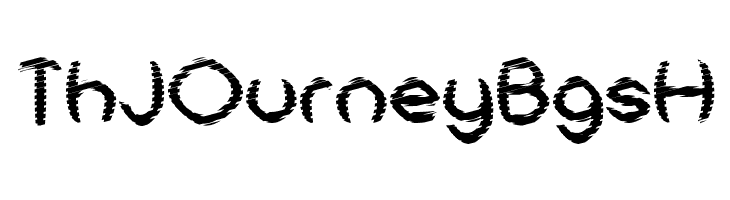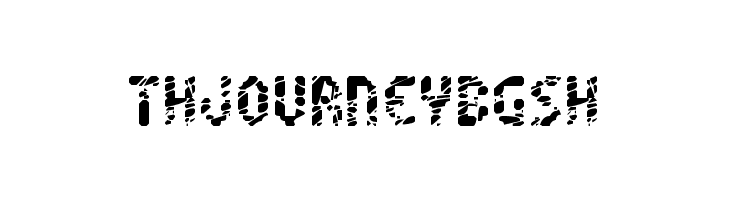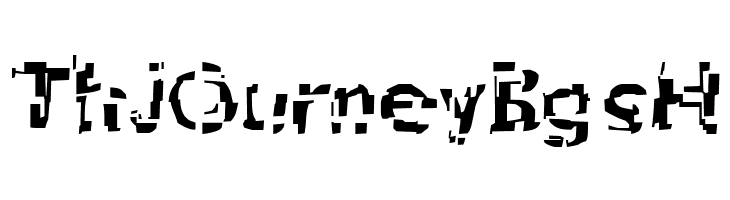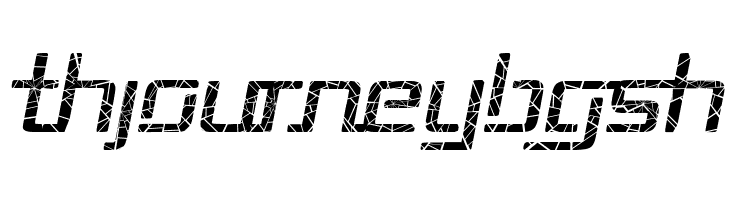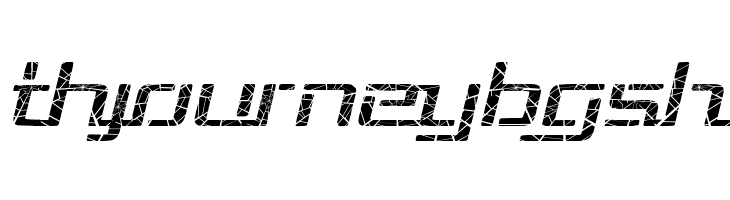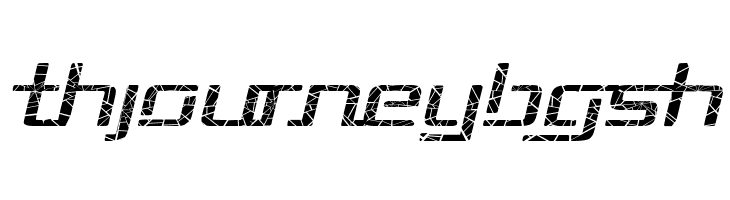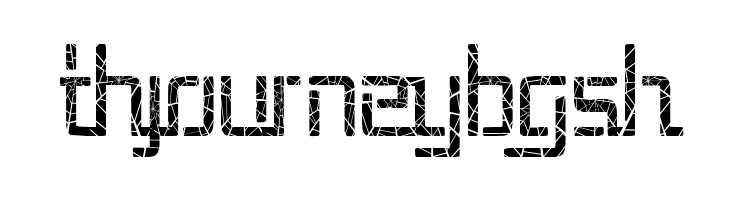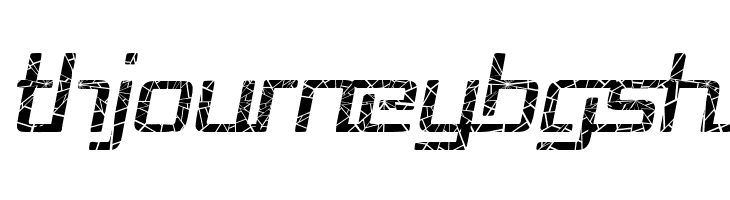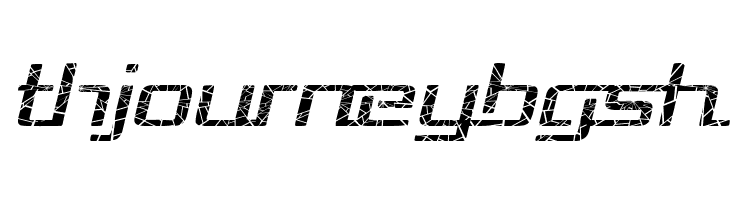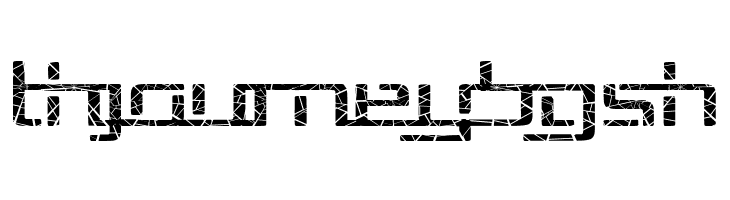
ShatterWeb Font
A bold, shattered glass effect font with dynamic, fragmented characters.
Shattered Font
A fragmented, shattered glass-style font with an edgy and dynamic appearance.
Universal Shatter Font
Font by Graham Meade - GemFonts
A bold, shattered-effect font with a dynamic and fragmented appearance.
Shattered Print Italic Font
An italicized, handwritten font with a dynamic and expressive style.
Republika - Shatter Font
Font by Apostrophic Lab
A bold, shattered-effect font with a geometric, modern style.
Republika Cnd - Shatter Font
Font by Apostrophic Lab
A bold, shattered glass effect font with a geometric and edgy style.
Shattered Print Bold Font
A bold, handwritten font with a textured, marker-like appearance.
Shattered Pixels Font
A fragmented, shattered-style font with a bold and edgy appearance.
Shattered Print Font
A dynamic, expressive handwritten font with playful strokes.
Republika IV Exp - Shatter Italic Font
Font by Apostrophic Lab
A dynamic, shattered-effect italic font with a modern and edgy style.
Republikaps Cnd - Shatter Font
Font by Apostrophic Lab
A bold, shattered glass effect font with a modern and dynamic style.
Republika - Shatter Italic Font
Font by Apostrophic Lab
A dynamic, shattered italic font with a bold, modern aesthetic.
Republikaps - Shatter Italic Font
Font by Apostrophic Lab
A bold, italicized font with a unique shattered effect for dynamic designs.
Republika IV - Shatter Italic Font
Font by Apostrophic Lab
A dynamic, shattered italic font with a bold, geometric style.
Republika II Exp - Shatter Font
Font by Apostrophic Lab
A bold, shattered-effect font with a modern and edgy style.
Republikaps Exp - Shatter Font
Font by Apostrophic Lab
A bold, shattered glass effect font with a modern, geometric style.
Republikaps - Shatter Font
Font by Apostrophic Lab
A bold, shattered glass effect font with a modern, edgy style.
Republika III - Shatter Italic Font
Font by Apostrophic Lab
A shattered, italicized font with a modern and dynamic appearance.
Republika II - Shatter Font
Font by Apostrophic Lab
A bold, shattered glass effect font with a dynamic and geometric style.
Republika IV - Shatter Font